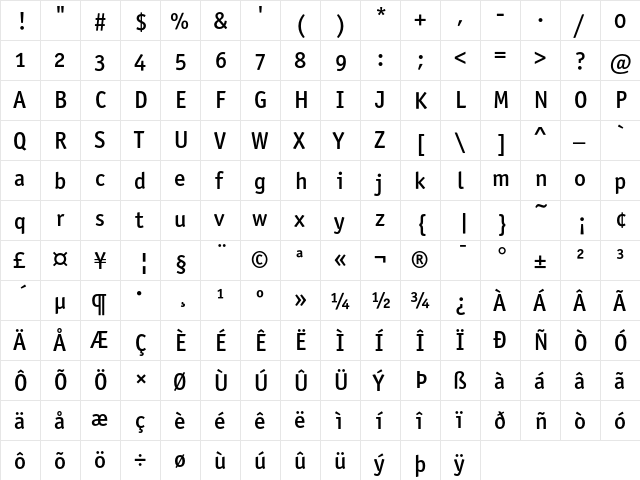
OfficinaSanITC MediumOS
Design Context for OfficinaSanITC Typeface
OfficinaSanITC is a composed and adaptable typeface that performs quietly and consistently across a wide range of design contexts.
Pro Tip: Pair OfficinaSanITC with a font of contrasting weight or personality to build a more expressive typographic hierarchy.